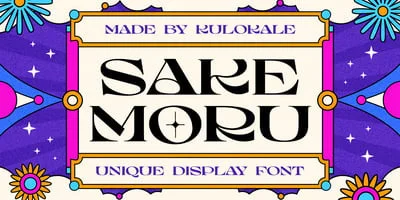
Sake Moru Font
Sake Moru Font is perfect for Japanese restaurant branding, sake brewery marketing, traditional Japanese cultural events, authentic sushi bar signage, Japanese tea ceremony materials, and sophisticated Japanese dining establishments. Its cultural character makes it ideal for sake importers, Japanese cultural centers, traditional Japanese artisans, Japanese language schools, and any application requiring authentic typography that conveys Japanese cultural refinement, sake tradition, and the elegant sophistication of Japanese culinary and cultural heritage.
Sake Moru Font is exciting because it captures the refined elegance and cultural depth of traditional Japanese sake culture through harmoniously crafted letterforms that reflect the artisanal precision and ceremonial beauty central to Japanese beverage traditions. Its sake-inspired proportions and cultural details evoke the meditative ritual of sake appreciation and the sophisticated craftsmanship that defines premium Japanese brewing, making it perfect for brands celebrating authentic Japanese culture and traditional beverage artistry. The font's sake character transforms communications into expressions of Japanese cultural reverence.
Sake Moru Font family includes culturally-refined weight variations typically featuring Light, Regular, Medium, and Bold options with traditional styling that maintains Japanese authenticity. The family often incorporates Japanese symbols, sake-related ornaments, and cultural elements designed for traditional Japanese applications, providing designers with comprehensive tools for creating authentic, Japanese culture-focused typographic compositions.
When selecting Japanese cultural typography solutions, Sake Moru Font represents an exceptional choice for authentic Japanese dining and cultural projects. This sophisticated typeface brings instant Japanese cultural credibility to any design, making it invaluable for Japanese restaurants, sake businesses, and cultural organizations celebrating Japanese traditions. Whether you're developing Japanese restaurant branding, creating sake marketing materials, or designing Japanese cultural event communications, Sake Moru Font provides the cultural authenticity and Japanese sophistication essential for honoring Japanese traditions in today's authentic Japanese cultural marketplace.